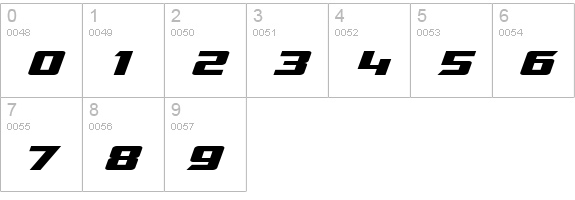
SF TransRobotics Extended Italic Font Details
SF TransRobotics Extended Italic is a distinctive, extended-width, italic variant in the SF typeface family \xE2\x80\x94 well suited to design and typography projects.
SF TransRobotics Extended Italic is a futuristic and cutting-edge font that pushes the boundaries of typographic design. With its sleek and sophisticated appearance, this font is perfect for any project that requires a touch of modernity and innovation. The extended italic style further adds a dynamic and stylish flair to your text, making it stand out from the crowd. Designed with attention to detail, SF TransRobotics Extended Italic is crafted to evoke a sense of technological advancement and progress. The italicized slant gives the font a sense of movement and energy, making it ideal for conveying a sense of urgency or forward motion in your designs. What sets SF TransRobotics Extended Italic apart is its availability as a free download. You can easily access and enjoy this font without any cost, making it an excellent choice for designers, creatives, and enthusiasts on a tight budget. Simply head over to FontsMarket.com to get your hands on this amazing typeface. Whether you're designing a website, creating a logo, or working on a digital or print project, SF TransRobotics Extended Italic is sure to elevate your design to new heights. Its modern and futuristic aesthetic will captivate your audience and leave a lasting impression. Don't miss out on the opportunity to enhance your designs with this remarkable font – download SF TransRobotics Extended Italic for free at FontsMarket.com today.